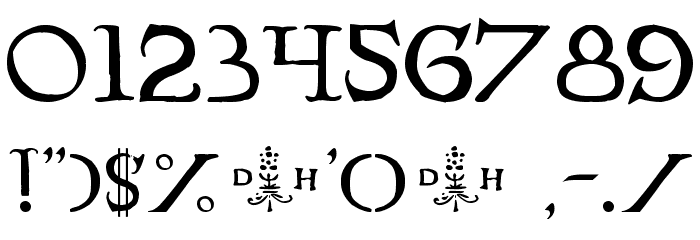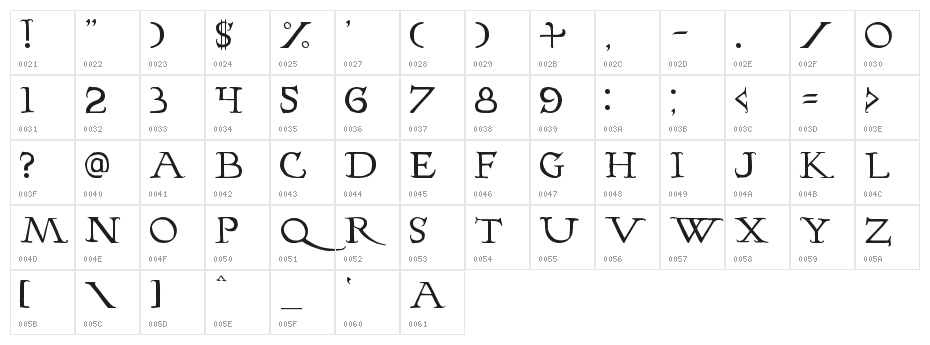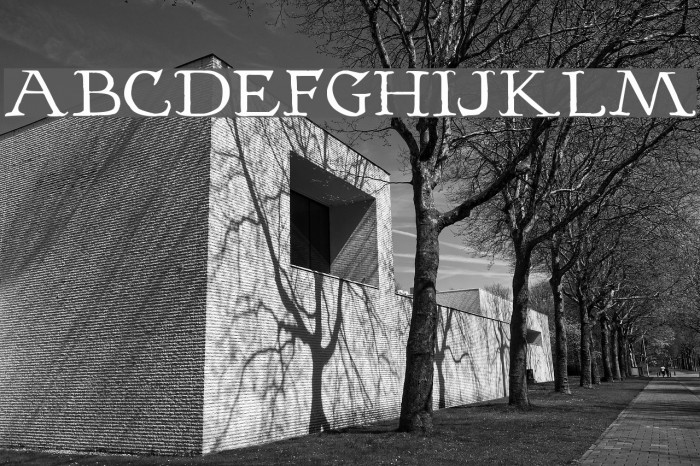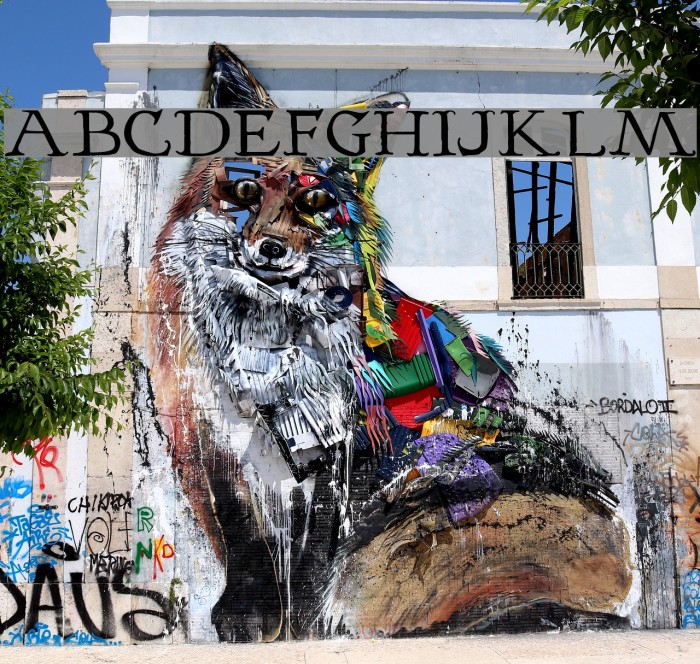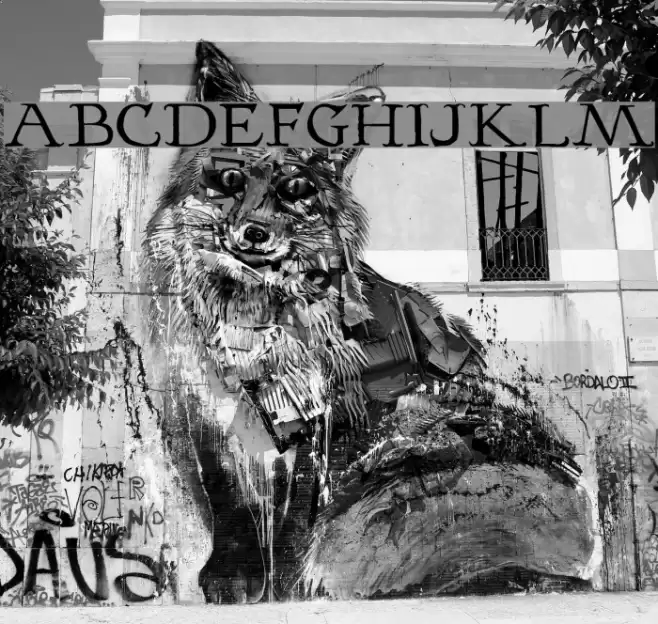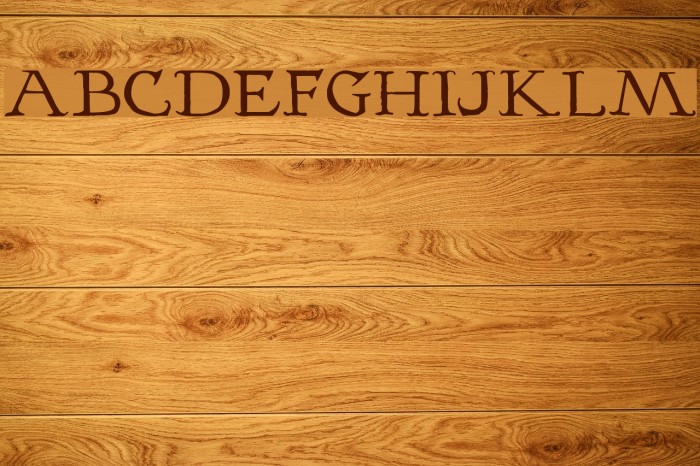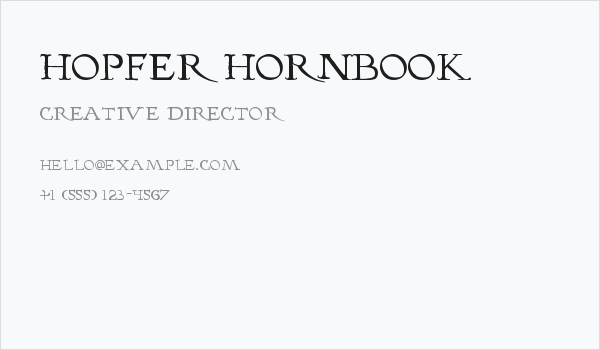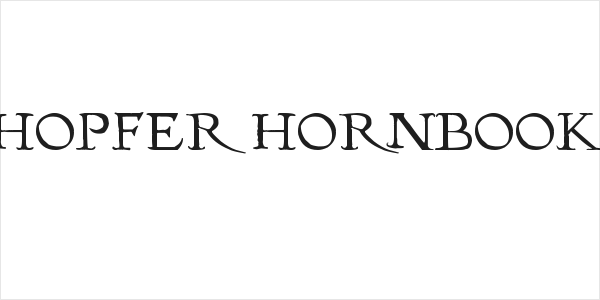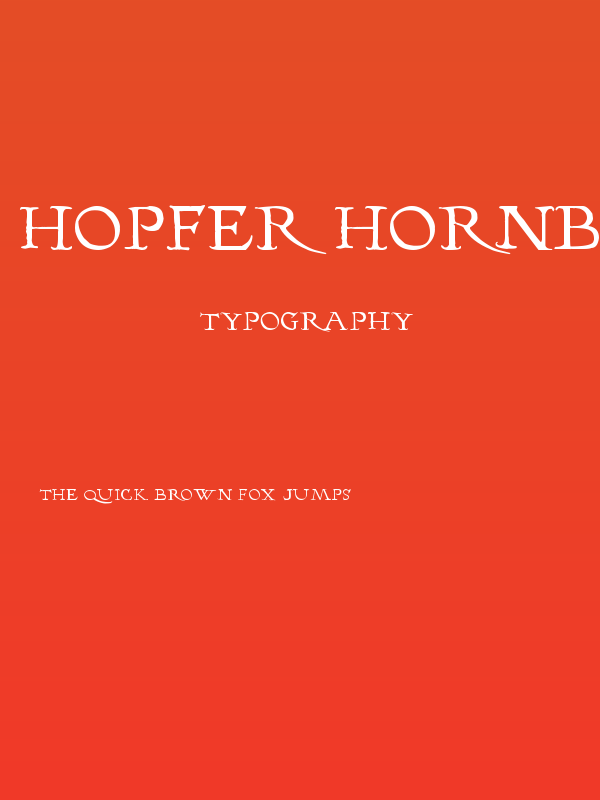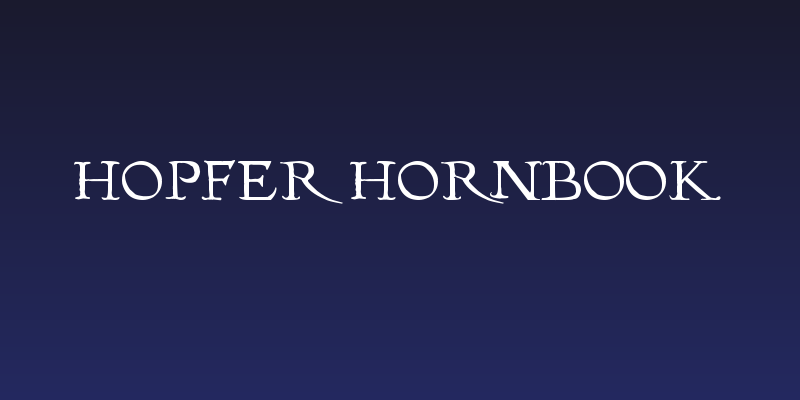
Hopfer Hornbook Font
Hopfer Hornbook Description
This font features a distinct and ornate style, characterized by its decorative serifs and unique embellishments on certain letters, such as the 'R' and 'S'. The uppercase letters exhibit a classic elegance, while the lowercase letters maintain a consistent design that complements the uppercase. The numerals are bold and slightly condensed, adding to the font's overall dramatic appearance. Special characters include intricate designs, adding a touch of sophistication and historical flair. The font's intricate details and historical influences make it suitable for projects that require a touch of vintage elegance.
| Use Case | Headlines, Logos, Decorative text |
| Proposed Projects | Ideal for vintage-themed designs, historical documents, invitations, and decorative headings. |